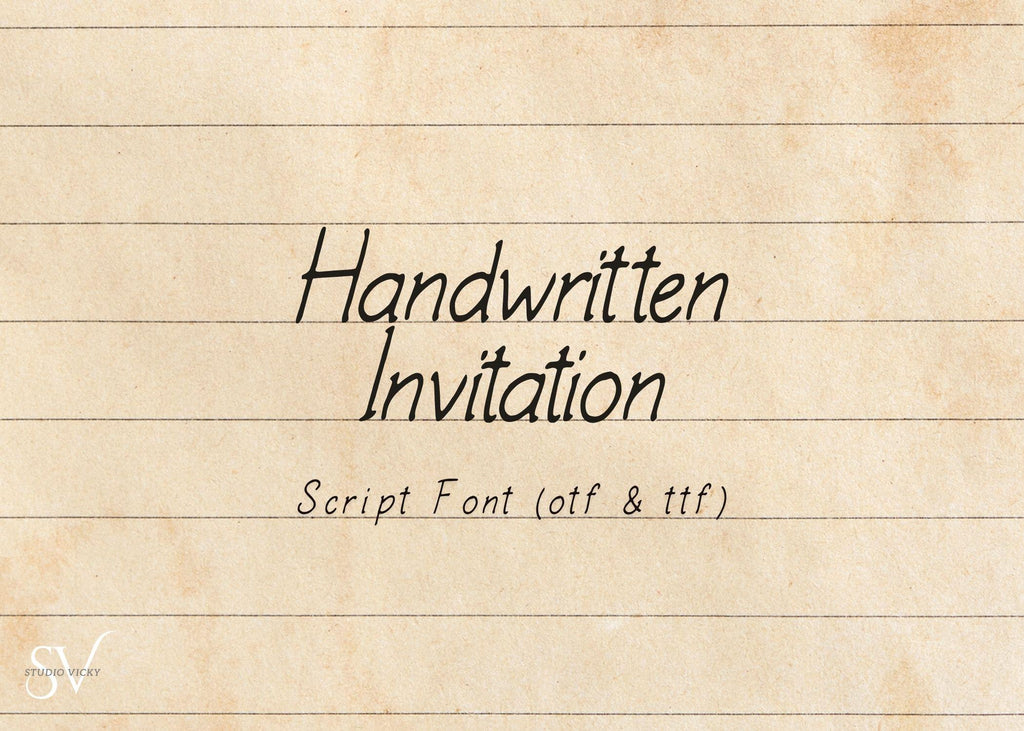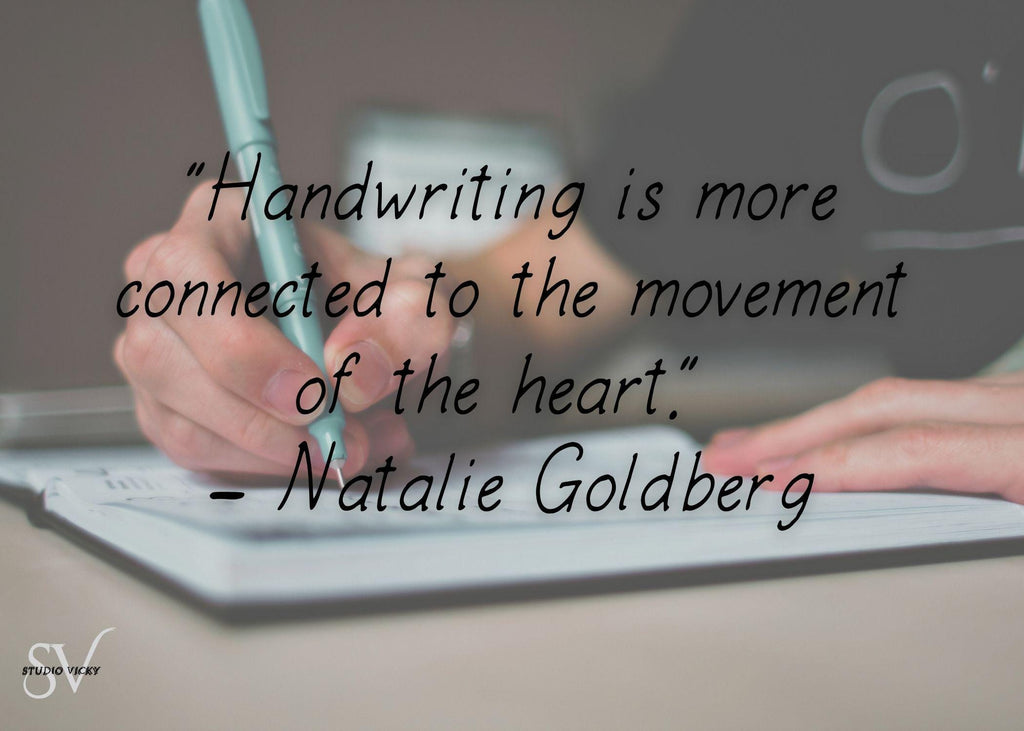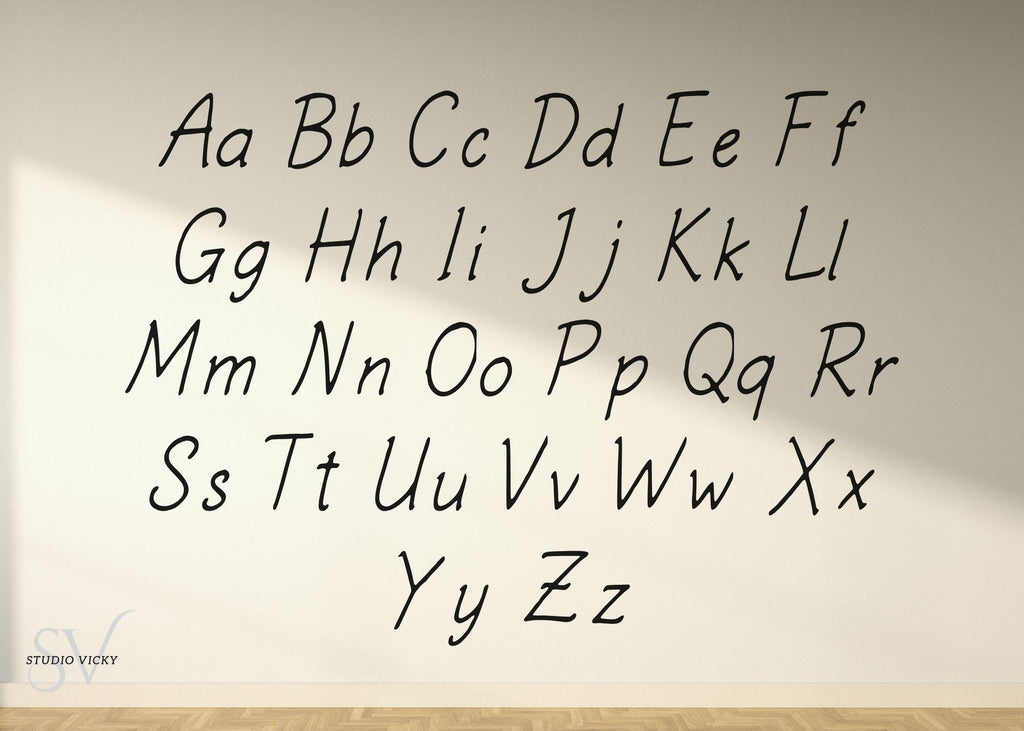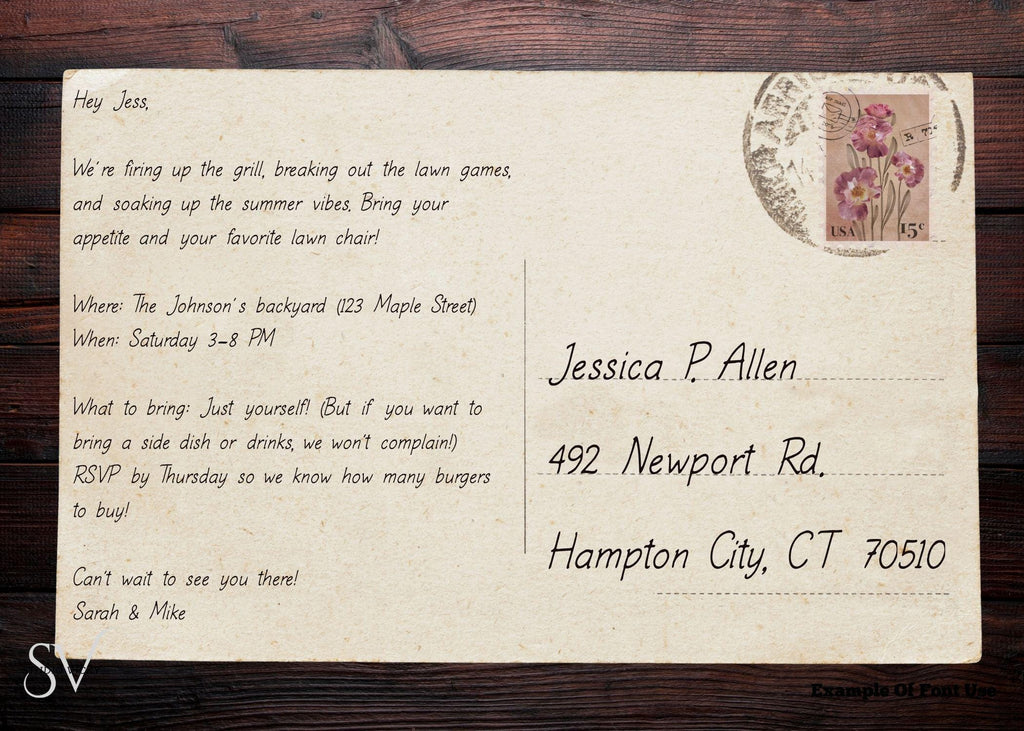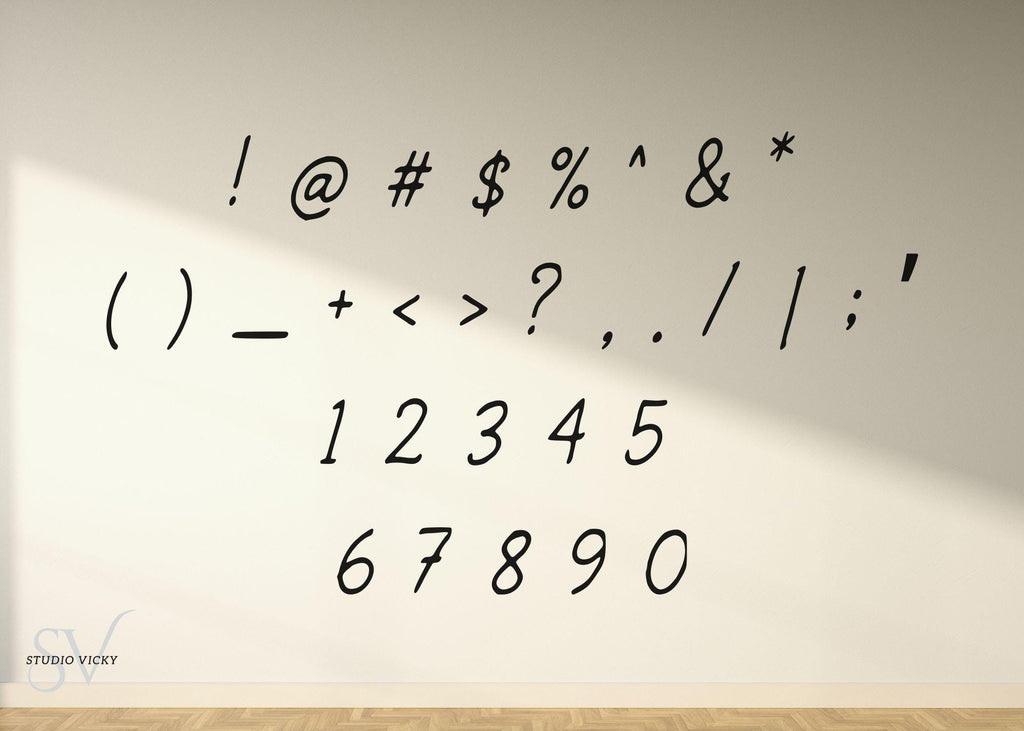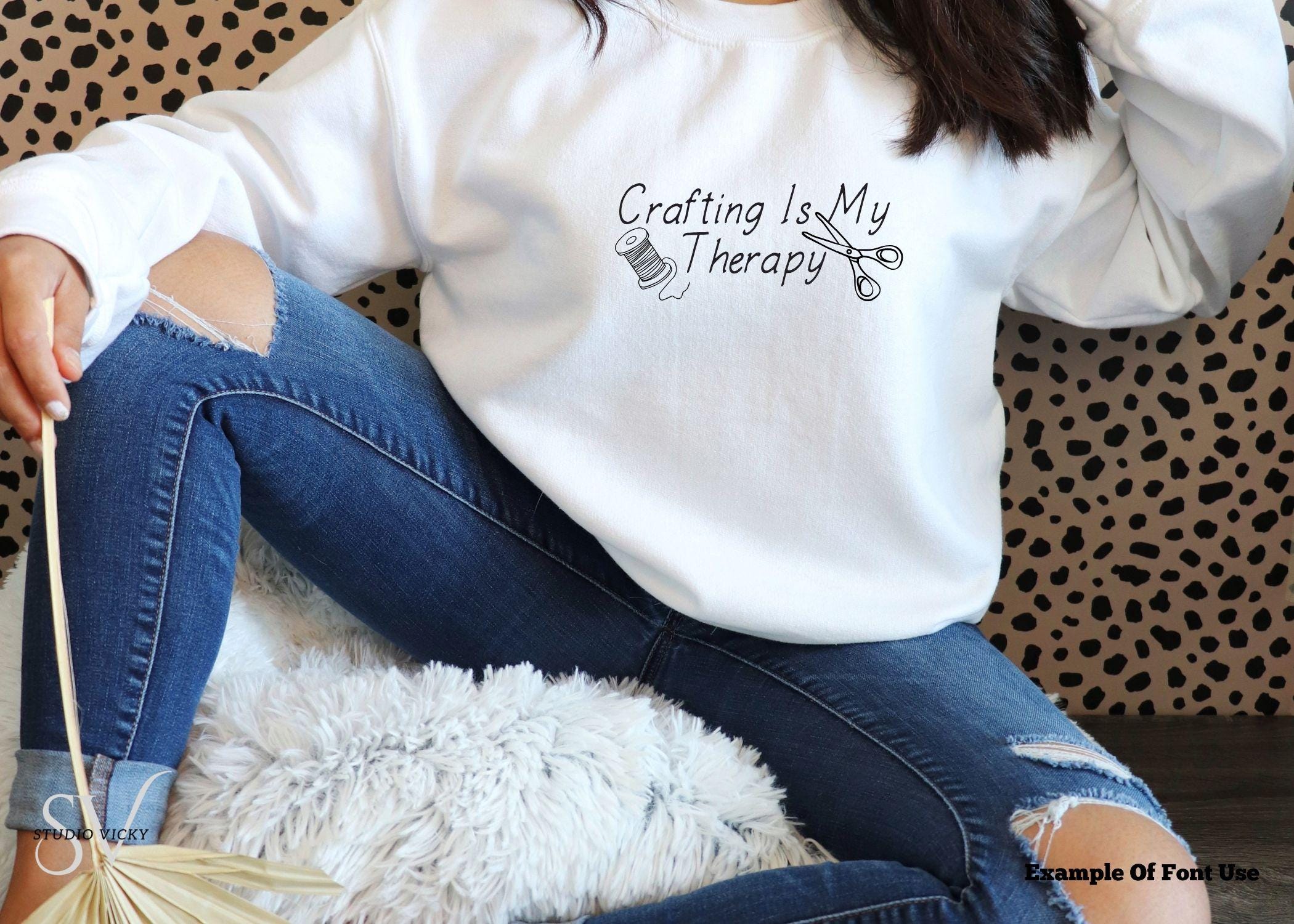
Handwritten Invitation Script Font: Elegant Modern Calligraphy (OTF, TTF Canva Friendly
Graceful, modern, and effortlessly charming! The Handwritten Invitation Script is the perfect font for adding a personal, polished touch to your designs. With flowing, natural strokes that mimic real handwriting, this script is ideal for wedding invitations, event stationery, greeting cards, logos, and branding that needs elegance without losing warmth.
Whether youโre creating a romantic save-the-date, a chic business logo, or heartfelt thank-you notes, Handwritten Invitation Script will make every word feel special.
Smooth, flowing script
Elegant yet approachable style
Make your next project unforgettable with the stylish charm of Handwritten Invitation Script.